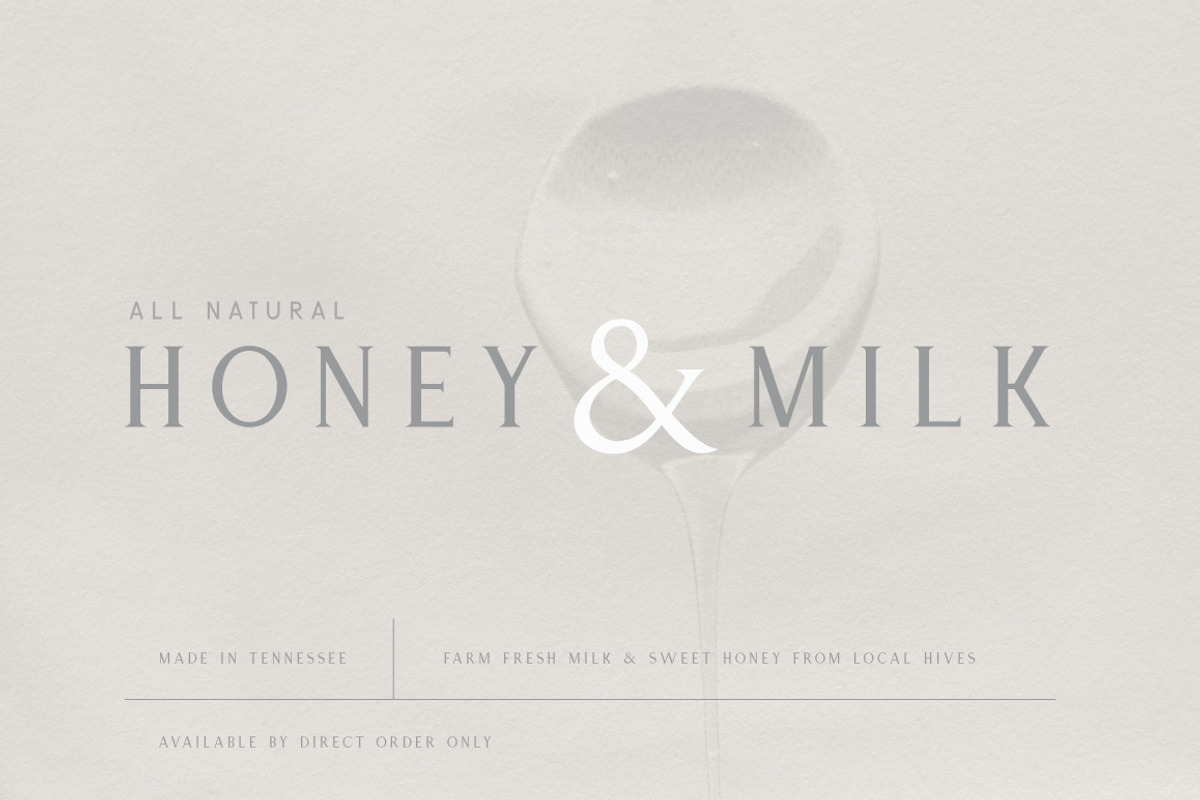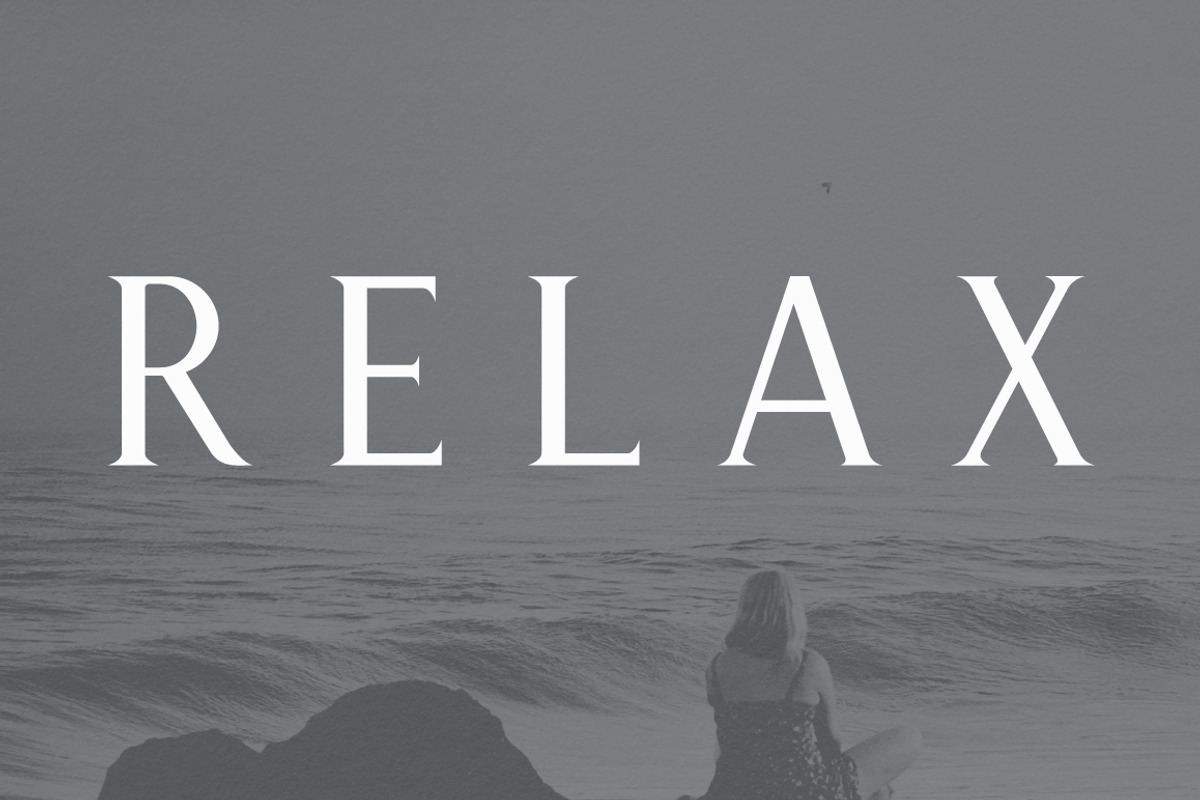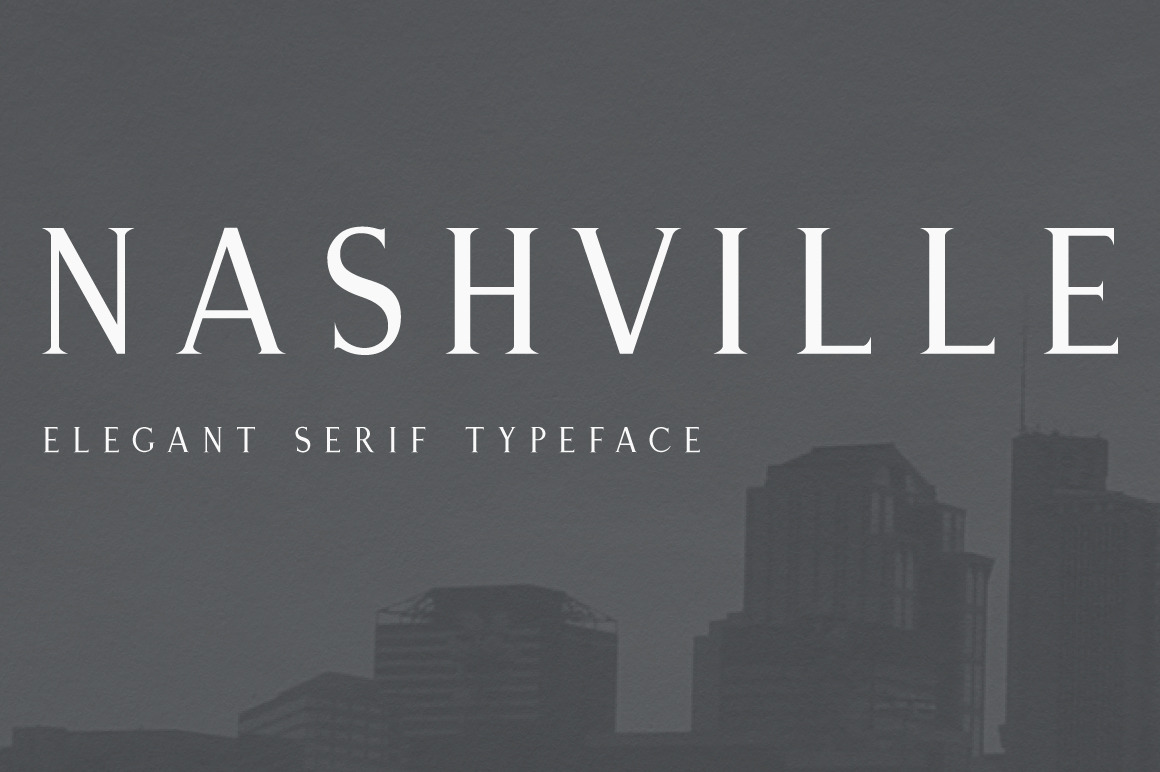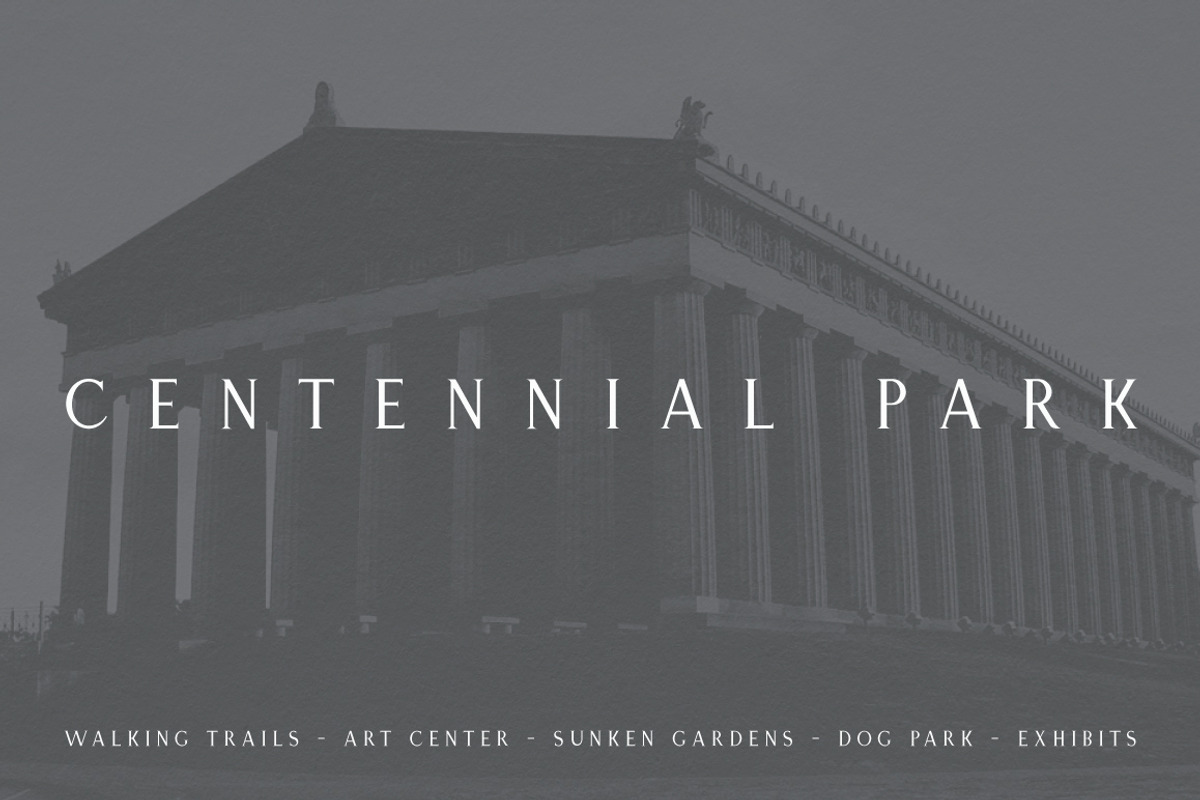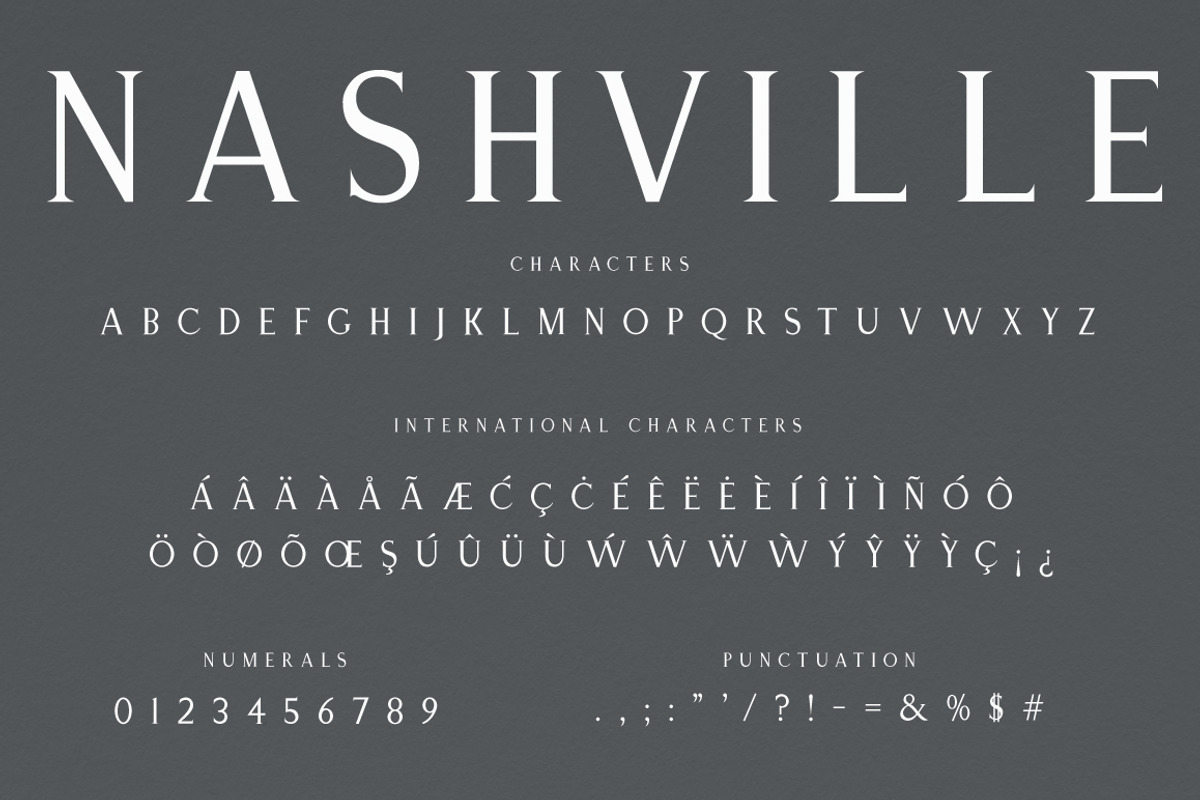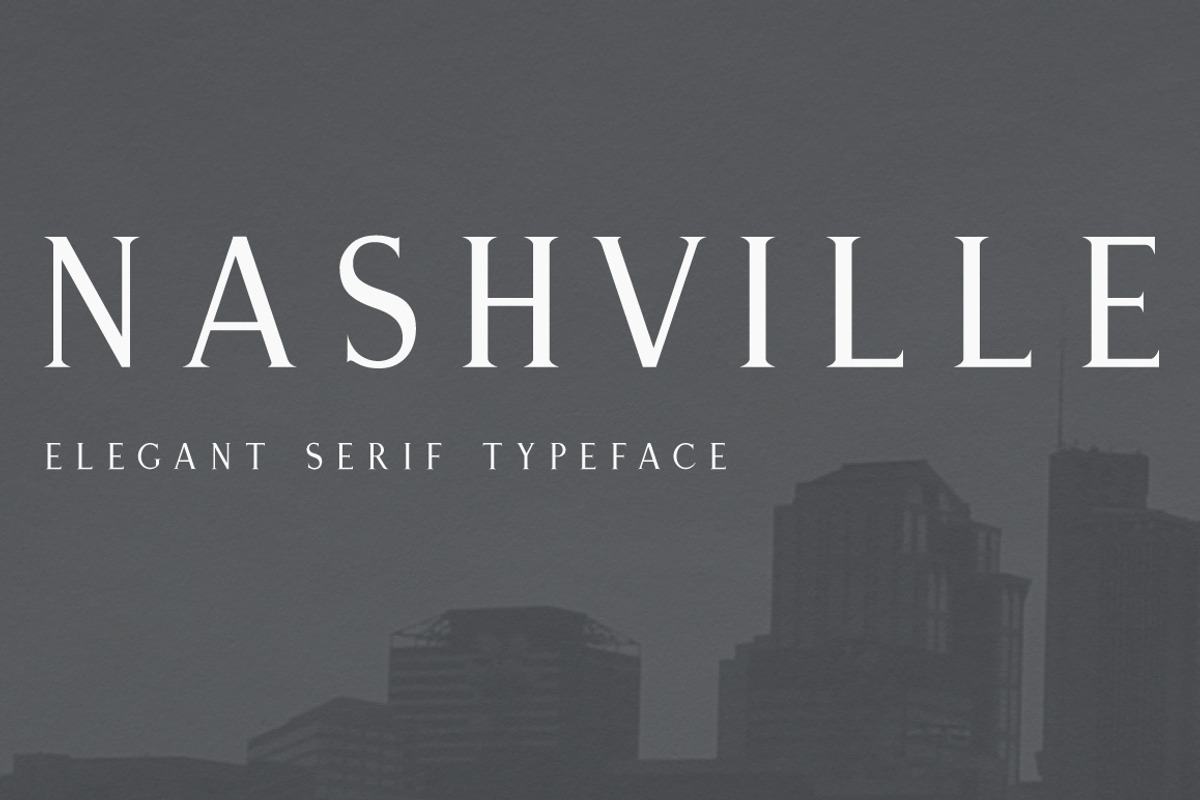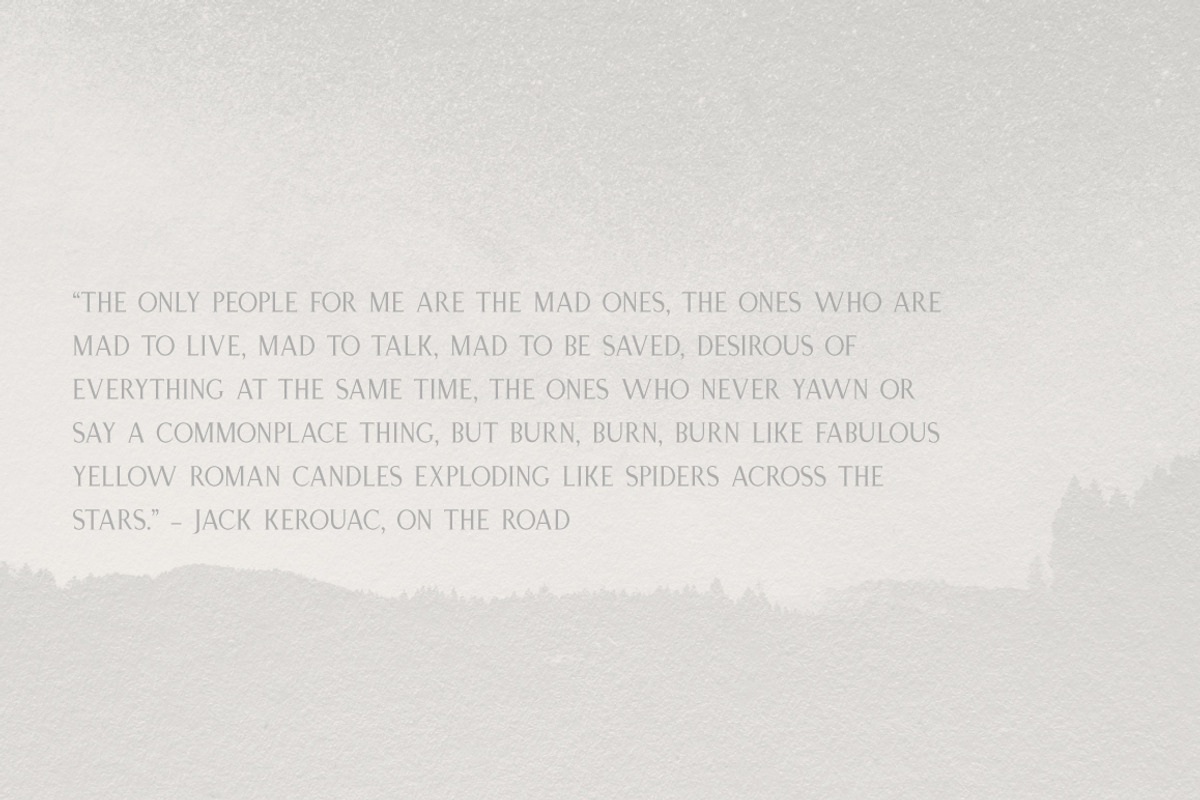
Nashville | Elegant Serif Typeface
Nashville, An Elegant Serif Typeface
Add a bit of class to your designs, and create gorgeous graphics with Nashville, an elegant serif typeface that is perfect for creating eye-catching, classic designs. Nashville is made to be incredibly readable so you can create incredible type layouts, or use is to craft wedding invitations, logos, display graphics, or any project that requires a luxurious serif typeface. And Nashville comes with multilingual support for even more variety with your type projects.
Uppercase Characters
Punctuation & Numerals
International Characters